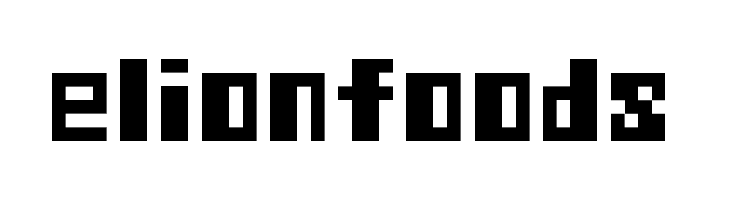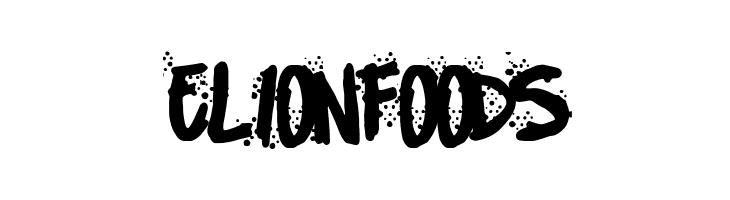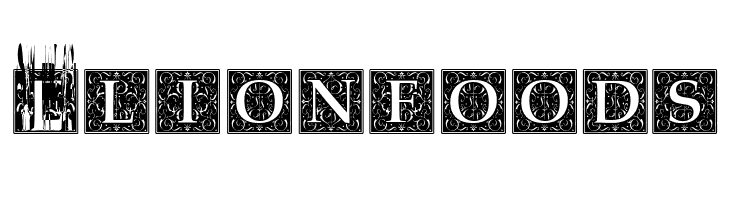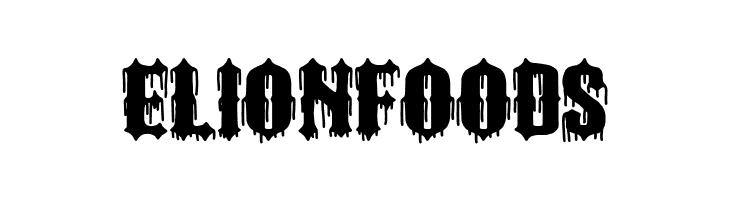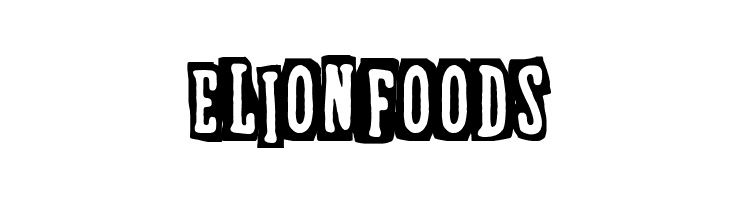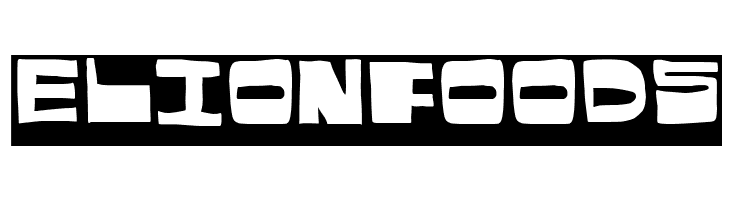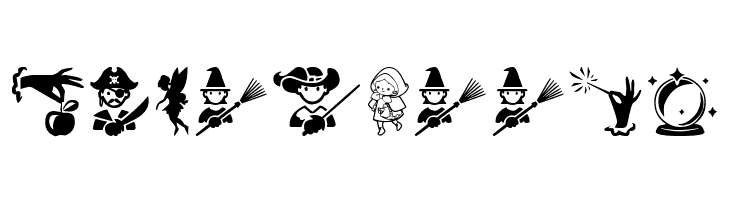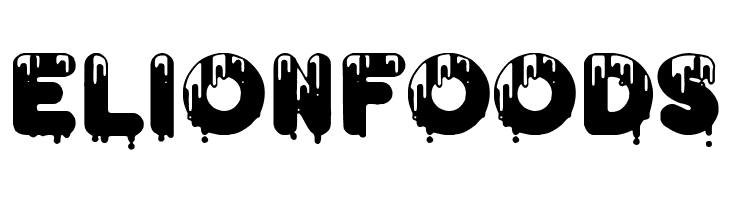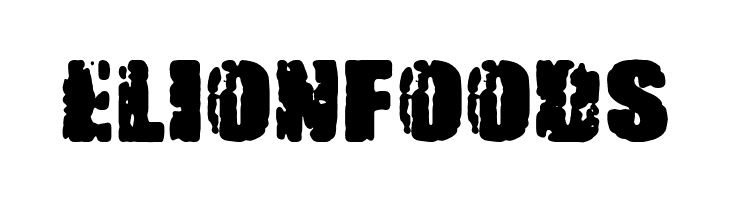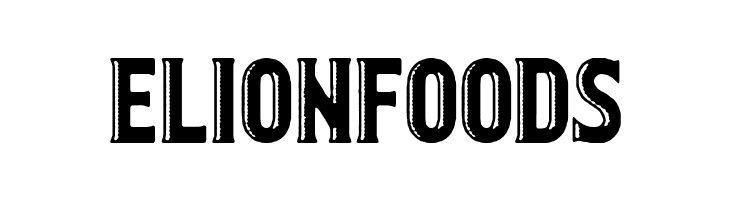
( www.woodcutter.es )
A bold, rounded font with a playful and dynamic style.
( Woodcutter - woodcutter Manero - www.woodcutter.es )
A bold, graffiti-inspired font with a textured, hand-painted look.
( Woodcutter - woodcutter Manero - www.woodcutter.es )
A playful, casual handwritten font with fluid, connected strokes.
( Woodcutter - woodcutter Manero - www.woodcutter.es )
A bold, playful font with bubbly, irregular shapes and whimsical cutouts.
( Woodcutter - woodcutter Manero - www.woodcutter.es )
An ornate, decorative font with baroque-inspired detailing.
( Woodcutter - woodcutter Manero - www.woodcutter.es )
A bold, playful font with a hand-drawn, energetic style.
( Woodcutter - woodcutter Manero - www.woodcutter.es )
Bold, iconographic font focused on cryptocurrency and finance symbols.
( Woodcutter - woodcutter Manero - www.woodcutter.es )
A bold, dripping font perfect for spooky or horror-themed designs.
( Woodcutter - woodcutter Manero - www.woodcutter.es )
A display font composed entirely of diverse trident symbols.
( Woodcutter - woodcutter Manero - www.woodcutter.es )
A bold, playful font with irregular, chunky characters and a hand-cut appearance.
( Woodcutter - woodcutter Manero - www.woodcutter.es )
An ornate, decorative font with intricate swirls and bold strokes, perfect for dramatic and elegant designs.
( Woodcutter - woodcutter Manero - www.woodcutter.es )
A bold, ornate blackletter-style font with intricate details and high contrast.
( Woodcutter - woodcutter Manero - www.woodcutter.es )
A bold, horror-themed font with a dripping effect and dramatic style.
( Woodcutter - woodcutter Manero - www.woodcutter.es )
A segmented, digital-style font inspired by classic LED displays.
( Woodcutter - woodcutter Manero - www.woodcutter.es )
Silhouette icons of various dinosaurs and prehistoric creatures.
( Woodcutter - woodcutter Manero - www.woodcutter.es )
A bold, eclectic font with a ransom note, punk rock aesthetic.
( Woodcutter - woodcutter Manero - www.woodcutter.es )
A bold, playful font with a vintage, three-dimensional style.
( Woodcutter - woodcutter Manero - www.woodcutter.es )
Bold, geometric e-commerce icon set with high clarity.
( Woodcutter - woodcutter Manero - www.woodcutter.es )
A bold, graffiti-inspired font with blocky, angular characters and a rebellious urban style.
( Woodcutter - woodcutter Manero - www.woodcutter.es )
Decorative fairy tale icon font with playful, bold silhouettes.
( Woodcutter - woodcutter Manero - www.woodcutter.es )
A bold, hand-drawn font with jagged edges and a dynamic style.
( Woodcutter - woodcutter Manero - www.woodcutter.es )
A bold, dripping font with a playful and artistic style.
( Woodcutter - woodcutter Manero - www.woodcutter.es )
A bold, distressed font with rough, chaotic edges and a grunge aesthetic.
( Woodcutter - woodcutter Manero - www.woodcutter.es )
A bold, textured font with a vintage, industrial feel.
( Woodcutter - woodcutter Manero - www.woodcutter.es )
A bold, distressed font with a vintage, industrial look.
( Woodcutter - woodcutter Manero - www.woodcutter.es )
A bold, dripping font with a spooky, horror-themed aesthetic.
( Woodcutter - woodcutter Manero - www.woodcutter.es )
A bold dingbat font with diverse sports and fitness pictograms.
( Woodcutter - woodcutter Manero - www.woodcutter.es )
A playful, bubble-like font with bold, rounded characters.
( Woodcutter - woodcutter Manero - www.woodcutter.es )
A bold, dripping font with a grunge and horror aesthetic.
( Woodcutter - woodcutter Manero - www.woodcutter.es )
A bold, distorted font with a glitch art style, perfect for modern, edgy designs.
( Woodcutter - woodcutter Manero - www.woodcutter.es )
A playful, whimsical font with hanging letters and star accents, perfect for festive designs.
( Woodcutter - woodcutter Manero - www.woodcutter.es )
A playful, dot-based font with a retro digital aesthetic.
( Woodcutter - woodcutter Manero - www.woodcutter.es )
A bold, rugged font with a hand-drawn, edgy appearance.